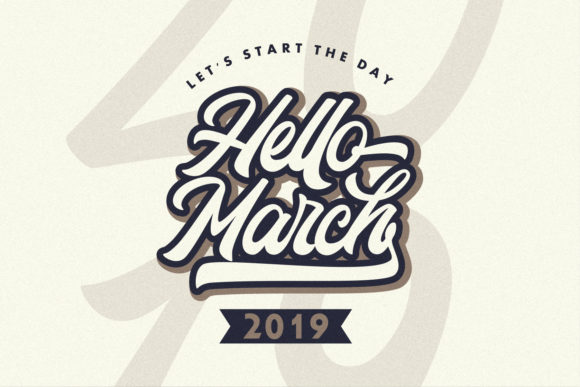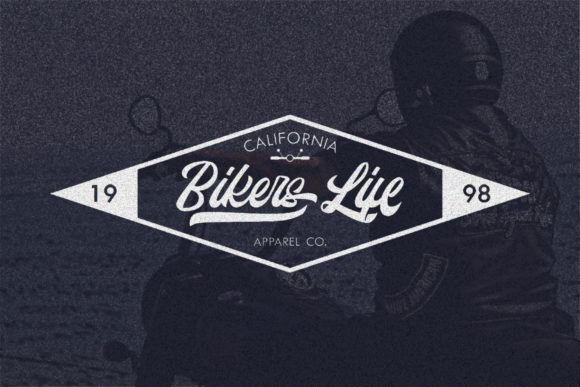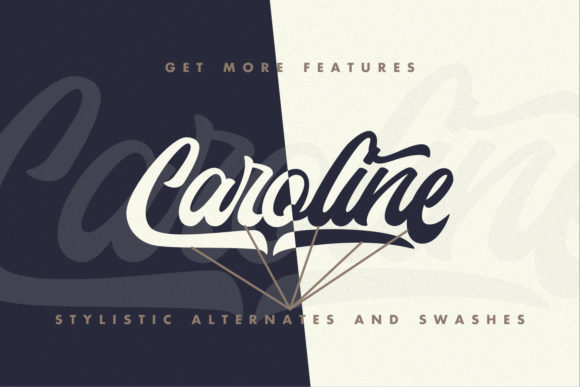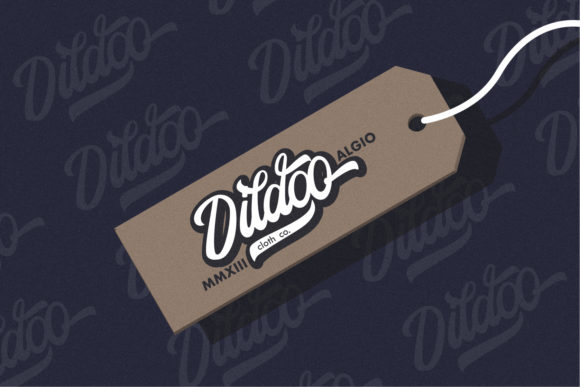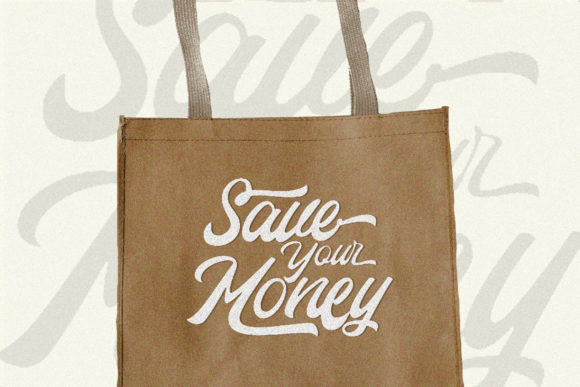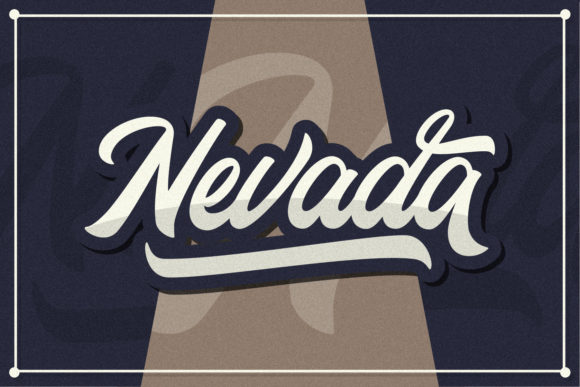
Introduction to Eastchaft Font
Remember that moment when you stumbled upon the perfect font for your creative project? The one that instantly elevates your design and makes it stand out from the crowd? For designers, finding the right font can be a game-changer. It’s the difference between a good design and a great one.
That’s where the Eastchaft Font comes in – a beautiful, hand-made typeface that’s inspired by classic poster designs. With its unique style and versatility, Eastchaft Font is the perfect addition to any design resource. Whether you’re working on a free download project or a high-quality commercial design, this font is sure to impress.
Key Features of Eastchaft Font
- High-quality, professional font suitable for creative projects, such as logos, graphics, and designs.
- Features a unique, modern design that sets it apart from other fonts in its class.
- Designed with high-resolution graphics in mind, making it suitable for use in print and digital applications.
Honest Review: Eastchaft Font
As a designer, I’m always on the lookout for high-quality design resources to elevate my creative projects. The Eastchaft Font caught my attention, and I was excited to give it a try. One of the first things I noticed was the transparent background, which made it easy to use on any design surface.
Here’s what I liked about the Eastchaft Font:
- ✨ Easy to use and customize
- ✨ Beautiful, elegant design that’s perfect for professional projects
- ⚠️ Limited character set, which may not be suitable for complex designs
- ⚠️ May not be compatible with all design software
Overall, I was impressed with the Eastchaft Font. It’s a great addition to any designer’s toolkit, and it’s perfect for creative projects that require a high-quality, elegant design. While it may have some limitations, it’s definitely worth checking out.
The Eastchaft Font is suitable for a wide range of creative projects, including business cards, brochures, and social media graphics. It’s also ideal for presentations, documents, and other written content that requires a professional and modern look.